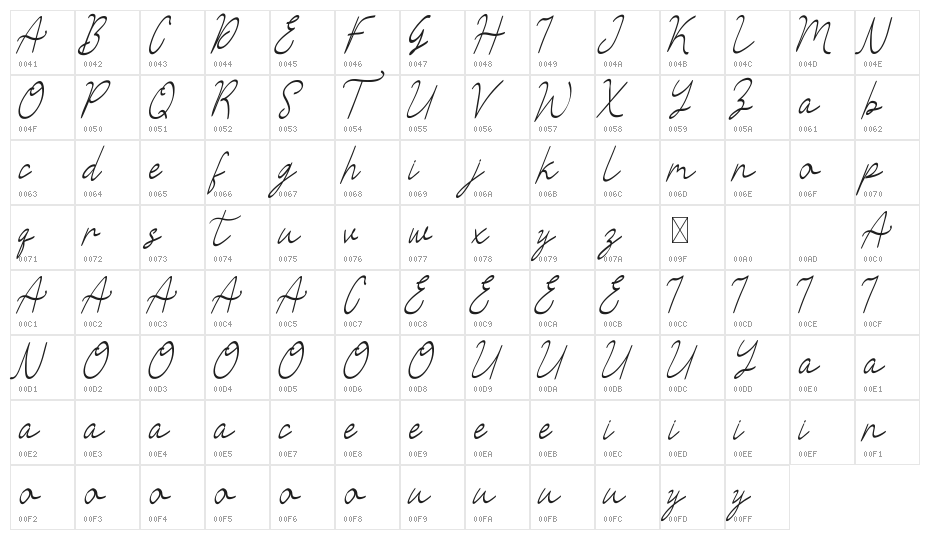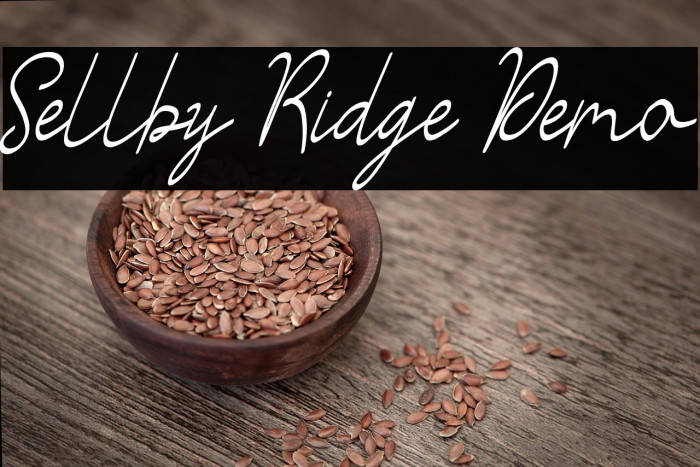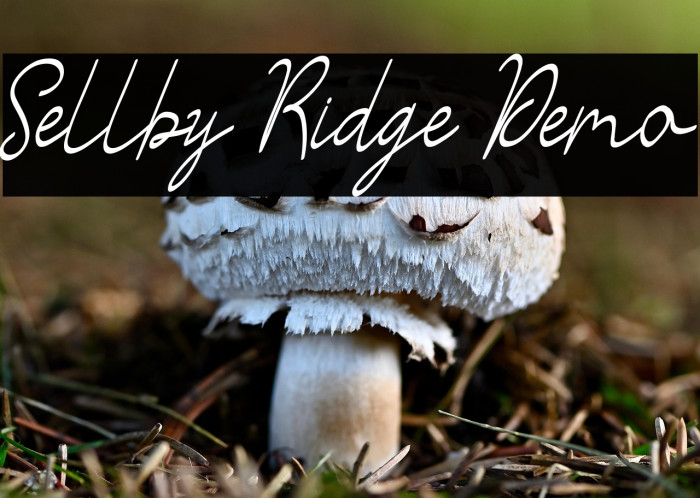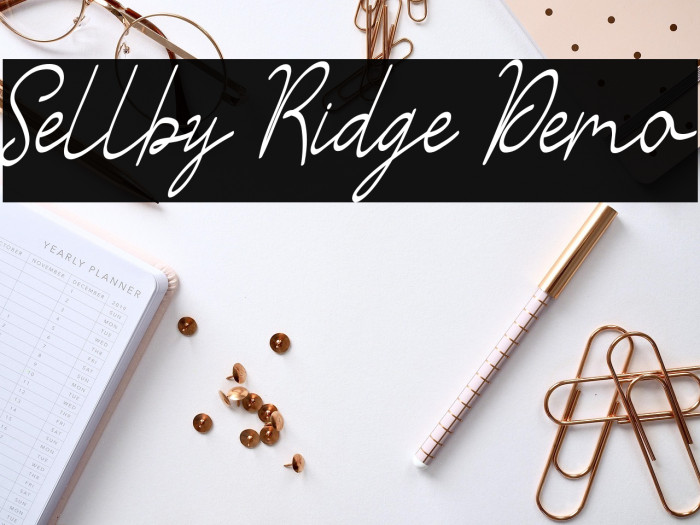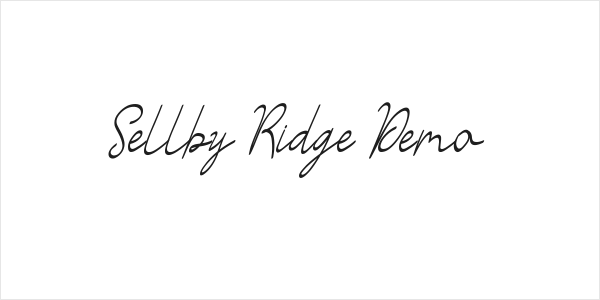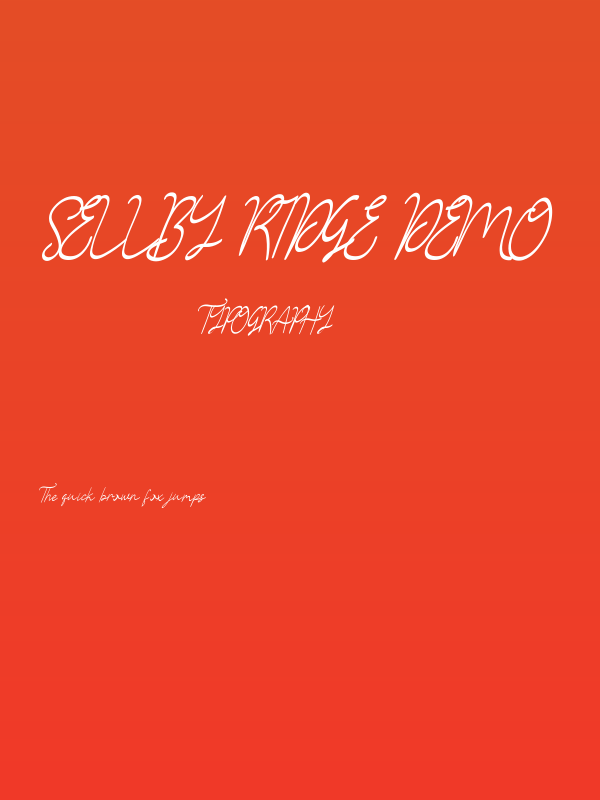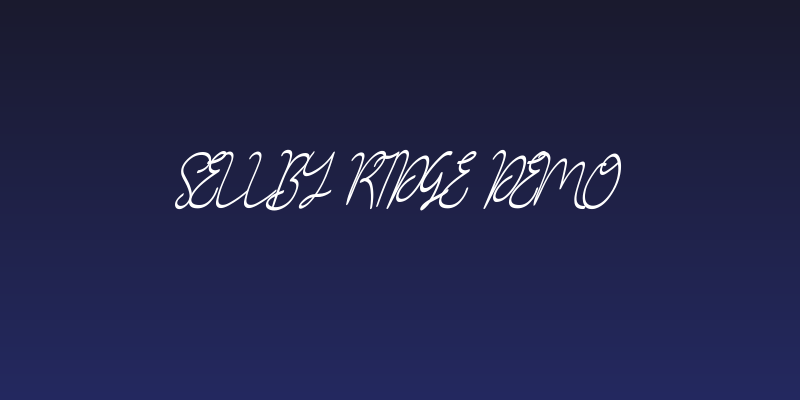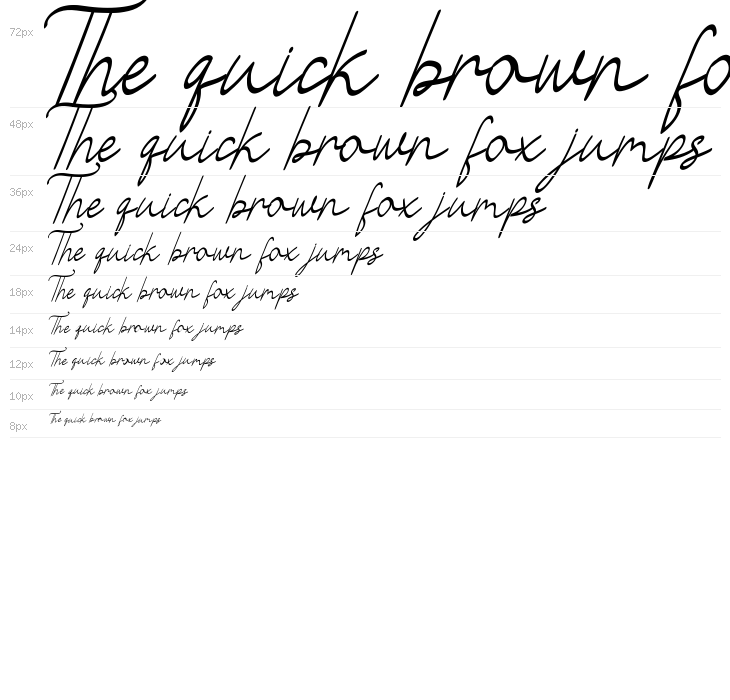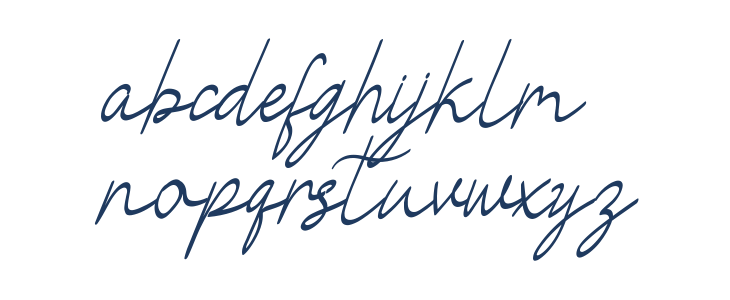
Sellby Ridge Demo Font
Sellby Ridge Demo Description
This font exudes a dynamic and fluid style, characterized by its elegant cursive script. The letters are interconnected with smooth, flowing strokes, giving it a handwritten appearance. The uppercase letters are bold and prominent, while the lowercase letters maintain a consistent flow, enhancing readability. The font's design is both sophisticated and casual, making it versatile for various applications. Its unique style is perfect for adding a personal touch to any project, with a sense of movement and grace that captures attention.
| Use Case | Logos, Invitations, Artistic projects |
| Proposed Projects | Ideal for wedding invitations, greeting cards, personal branding, and artistic projects. |